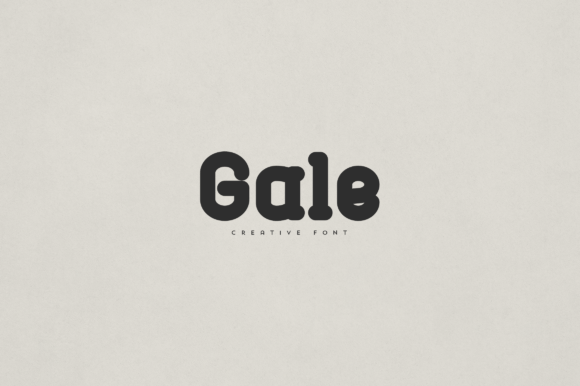
The Perfect Storm of Typography
Have you ever been in the midst of a creative project, pouring over designs and trying to find that perfect font to tie everything together? I know I have – and I’m sure you have too. It’s that moment when everything clicks, and the entire design just comes alive.
Enter the Gale Font, a stunning slab serif font that’s about to revolutionize your typography game. With its elegant and versatile design, Gale Font is the perfect addition to any branding project, home-ware design, or product packaging. Whether you’re a seasoned designer or just starting out, this font is sure to bring a touch of sophistication and style to your work.
Gale Font Key Features
- Unique Characteristic: The font features a unique blend of modern and vintage elements, making it suitable for a wide range of designs.
Gale Font Review
As a designer, I was excited to try out the Gale Font. After working with it for a while, I’ve got some thoughts to share.
- Unique and elegant design: Gale Font has a distinct style that sets it apart from other fonts.
- High legibility: The font is easy to read, even at smaller font sizes.
- Good for body text: Gale Font is well-suited for body text, making it a great choice for articles and blog posts.
- Limited font sizes: The font doesn’t have as many font sizes available as some other fonts.
- Not ideal for headings: While Gale Font is great for body text, it’s not the best choice for headings and titles.
- Can be too elegant: The font’s elegance can sometimes make it feel too formal or stuffy.
Overall, I think Gale Font is a solid choice for designers looking for a unique and legible font. While it has some limitations, its strengths make it a great addition to any design project.
Tips for Getting the Most Out of the Gale Font
To get the most out of the Gale Font, try the following:
- Combine the Gale Font with other fonts to create a unique and visually appealing design.
- Use the Gale Font to add emphasis to important text elements.
The Gale Font is commonly used in:
- Graphic design projects.
- Marketing materials.
- Use Gale Font as the main title of the artwork, highlighting the name of the forest or a key feature.
- Combine Gale Font with hand-drawn illustrations of trees, flowers, and animals to create a sense of depth and dimension.
- Pairs well with earthy colors such as greens, browns, and tans to evoke a sense of natural surroundings.
- Use bold lines and geometric shapes to add contrast and visual interest.
- Use Gale Font as the main title of the poster, highlighting the destination or a key feature.
- Combine Gale Font with distressed textures and vintage-inspired graphics to create a sense of nostalgia and retro charm.
- Pairs well with warm colors such as reds, oranges, and yellows to evoke a sense of excitement and adventure.
- Use ornate borders and intricate patterns to add a touch of elegance and sophistication.
Alternatives to Gale Font for Designers
Gale Font is a popular sans-serif font known for its modern and clean design. However, there are other alternatives that can provide similar or unique features for designers.
Bebas Neue is a modern sans-serif font that is highly legible and versatile. It is suitable for various design projects, including branding, advertising, and digital interfaces. Bebas Neue is a great alternative to Gale Font for designers who want a clean and modern look with a slightly condensed feel.